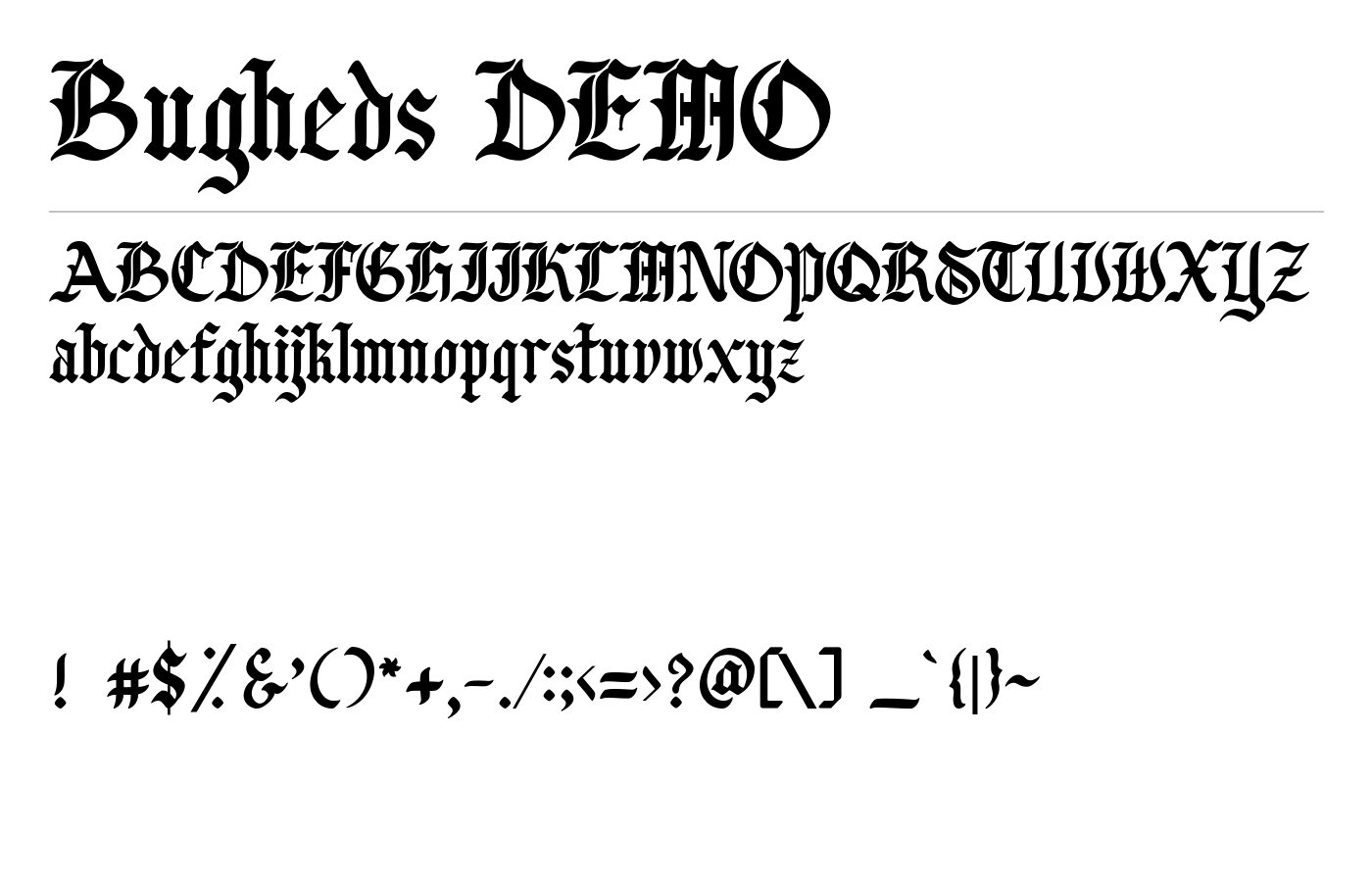
Bugheds DEMO is a bold blackletter serif font that evokes a strong medieval and Gothic atmosphere with its sharp, elaborate strokes and dense letterforms. Its high contrast and ornate details give it a dramatic, historic feel, making it ideal for vintage branding, decorative titles, and impactful headlines where a sense of tradition and bold character is desired. This font works best in designs seeking to convey authority, craftsmanship, or an old-world aesthetic.
Bugheds DEMO Font
About Bugheds DEMO Font